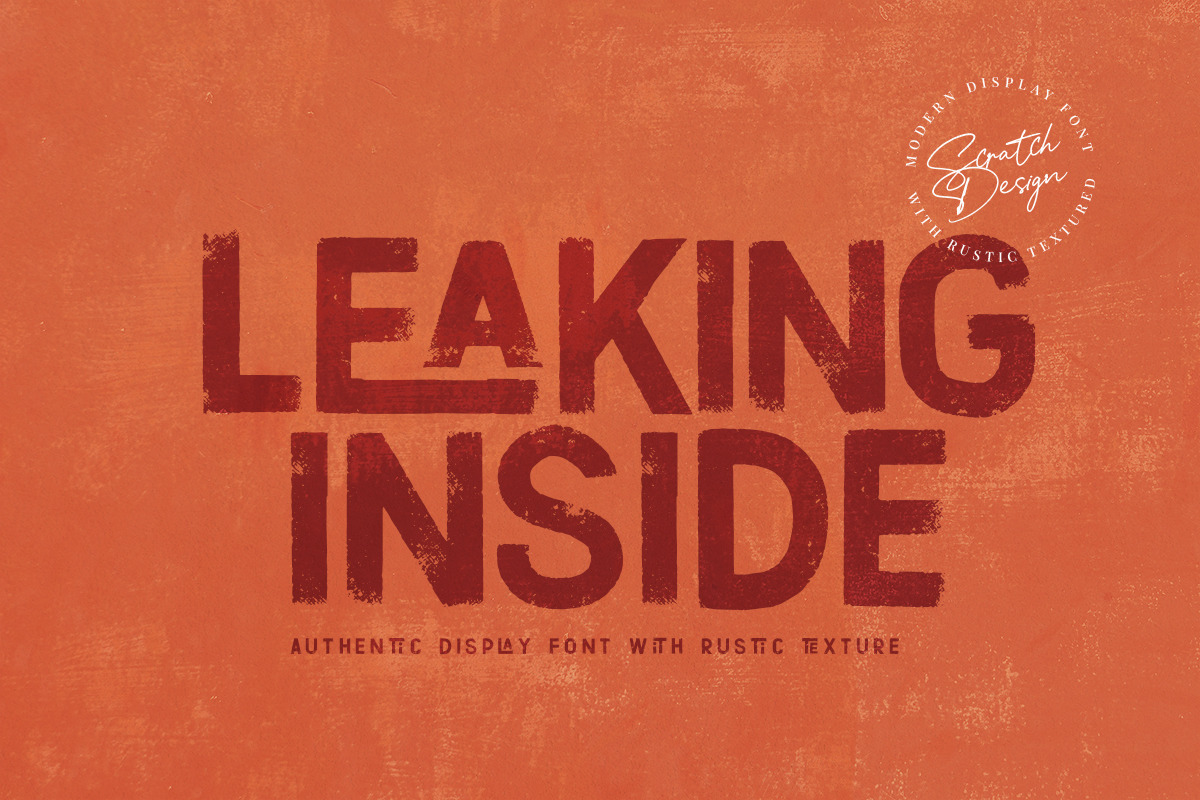
Leaking Inside is a Bold Display font with a rustic texture effect that makes this font look so natural and vintage. This font has a strong character so it will be useful in various designs such as quotes, menus, logos, branding, clothing, and other designs with casual or vintage concepts. Leaking Inside also includes support for multiple languages & ligatures.